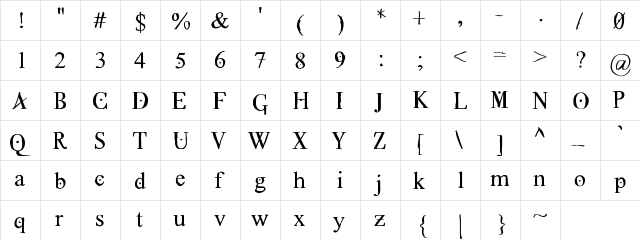
GRECOromanLubedWrestling Medium
Design Context for GRECOromanLubedWrestling Typeface
GRECOromanLubedWrestling takes a measured approach to typography — its balanced proportions and neutral character make it a reliable workhorse for both digital and print work.